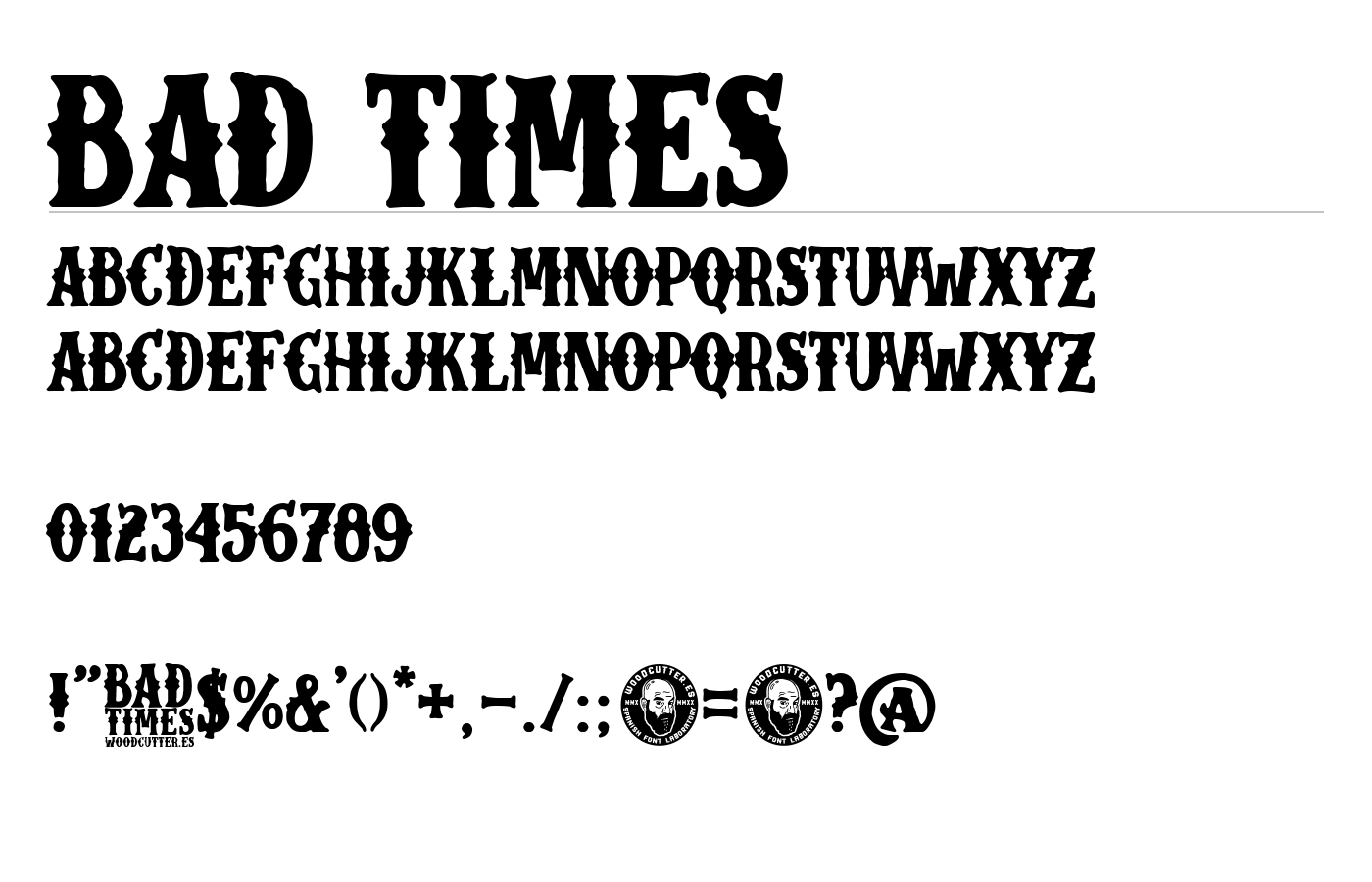
Bad Times is a bold, condensed serif font featuring vintage Western-style letterforms with strong contrast and decorative, sharp serifs. Its heavy weight and compact spacing give it a dramatic, rugged character perfect for logos, posters, or branding that seeks an old-fashioned, bold, and distinctive look, especially in themes related to Americana or Wild West aesthetics.
Bad Times Font
About Bad Times Font